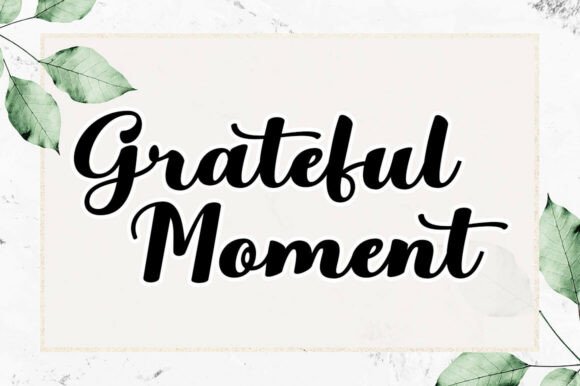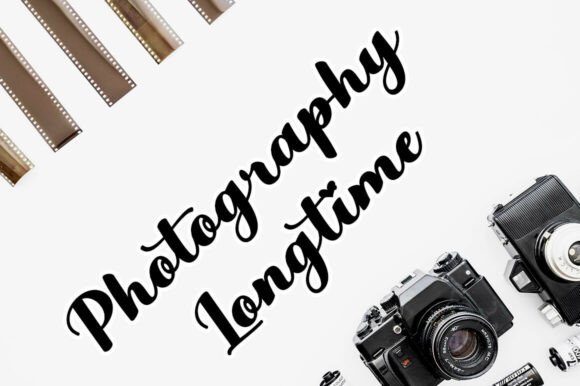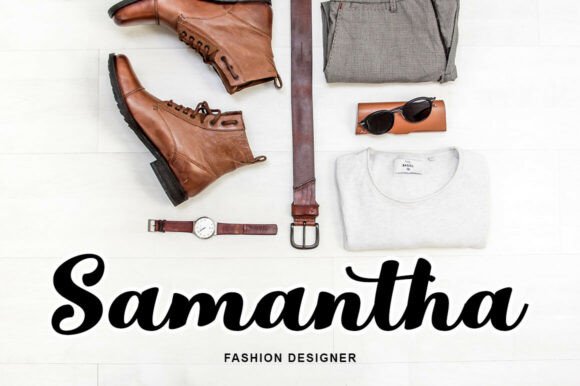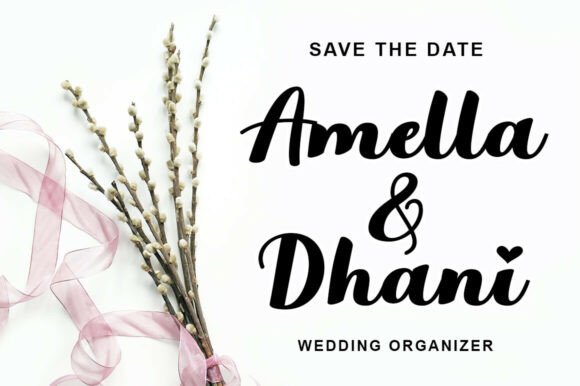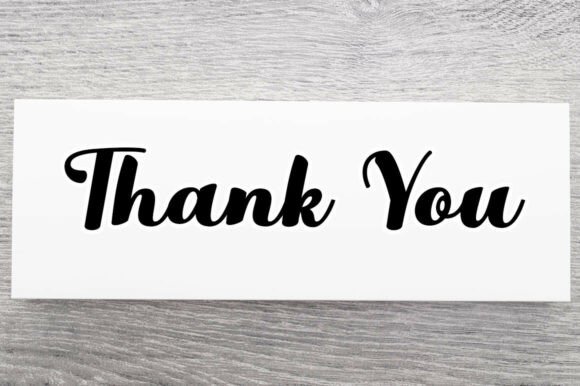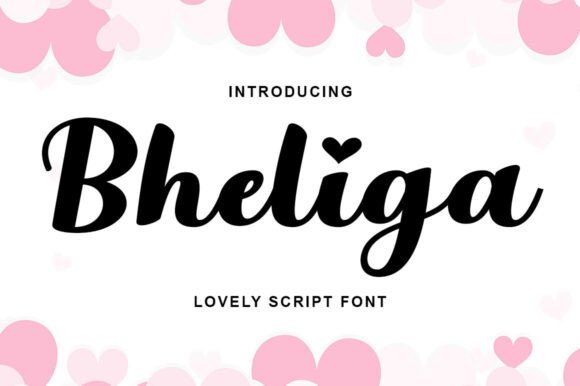
The Sweet Charm of Bheliga Font: A Designer’s Delight
I’ll never forget the time I was working on a wedding invitation project, and my client asked for a font that was ” elegant, yet playful; romantic, yet not too over-the-top.” I scoured the internet, tried out dozens of fonts, but nothing seemed quite right. That was until I stumbled upon Bheliga Font. ✨ This sweet and cursive handwritten font has been a game-changer for me, and I’m excited to share its charm with you.
An Honest Review of Bheliga Font
- ✨ Beautifully crafted, cursive script with a joyful and romantic feel
- ✅ Highly versatile and adaptable to various design projects
- 💕 Perfect for branding, logos, wedding materials, greeting cards, and more
- 👍 Elegant, yet casual and approachable
While Bheliga Font is an excellent choice for many projects, there are a few things to keep in mind: 🤔
- ⚠️ Some characters may not work well in all contexts, so be sure to test and adjust as needed
- ⚠️ May not be suitable for very long blocks of text, as it can be a bit ornate
- Explore the font’s glyphs and OpenType features, such as swashes and alternates, to add a personal touch
- Use the font’s built-in features, such as ligatures, to add a touch of elegance
The Story Behind Bheliga Font
Bheliga Font was designed with love and care by a talented type designer who wanted to create a font that would bring joy and romance to designs. The font’s gentle, cursive curves and playful feel make it perfect for a wide range of projects, from wedding invitations to fashion branding.
Q: Is Bheliga Font suitable for body text?
A: While Bheliga Font is beautiful, it’s best used in moderation, such as in headings or titles. For body text, a clearer font may be more readable.